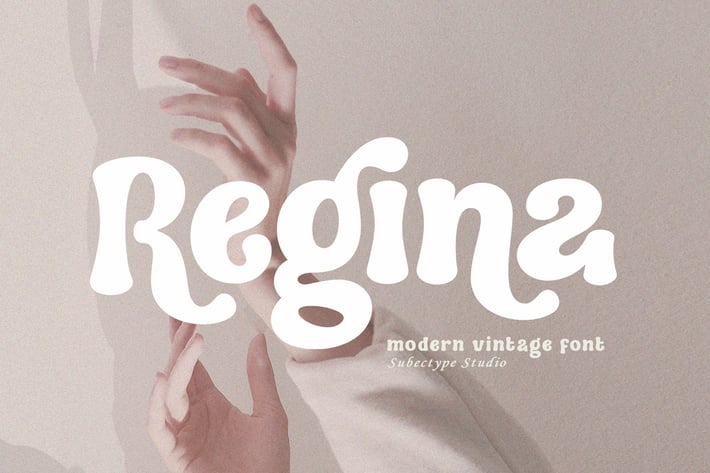
Regina - Modern Vintage Font
Introducing Regina MOdern Vintage font , it's a sans serif modern and vintage font, that has own unique style & casual look. This font is perfect for an elegant & luxury logo, branding,
title project, fashion brand, magazine, clothes, lettering, quotes, and so much more.